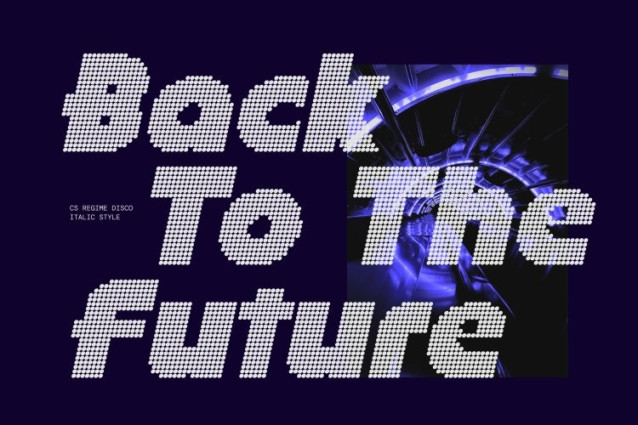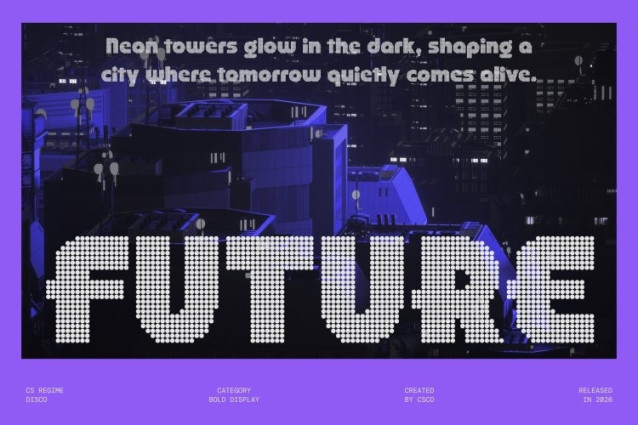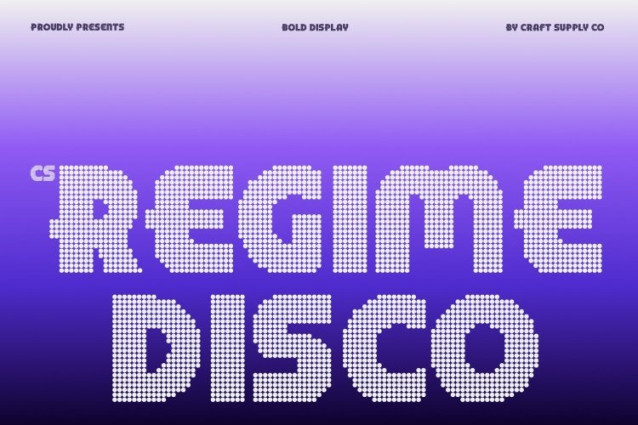
CS Regime Disco Font
CS Regime Disco Font – This is a bold display font inspired by Bauhaus design principles, enhanced with a lively disco-style dotted texture. Its geometric forms and modular construction create a strong, structured visual presence, while the dotted surface introduces a vibrant decorative rhythm. This fusion blends iconic modernist geometry with playful visual sparkle.
Geometric Shapes with Luminous Character
Built from circles, straight lines, and simplified curves, the letterforms form a cohesive modular system that feels both precise and expressive. The disco-inspired dotted texture adds depth and brightness to the clean geometry, transforming the bold shapes into eye-catching typographic elements.
Retro Bauhaus Influence with Modern Energy
While rooted in early modernist design traditions, this font presents a fresh and contemporary interpretation. The retro Bauhaus influence provides historical charm, while the textured finish injects personality and visual movement that feels modern and energetic.
Perfect for Posters, Branding, and Editorial Displays
This font excels in posters, branding systems, editorial layouts, packaging, and creative campaigns. Its bold geometric structure ensures strong visibility, while the shimmering dotted texture adds an engaging decorative quality that makes headlines and titles stand out.